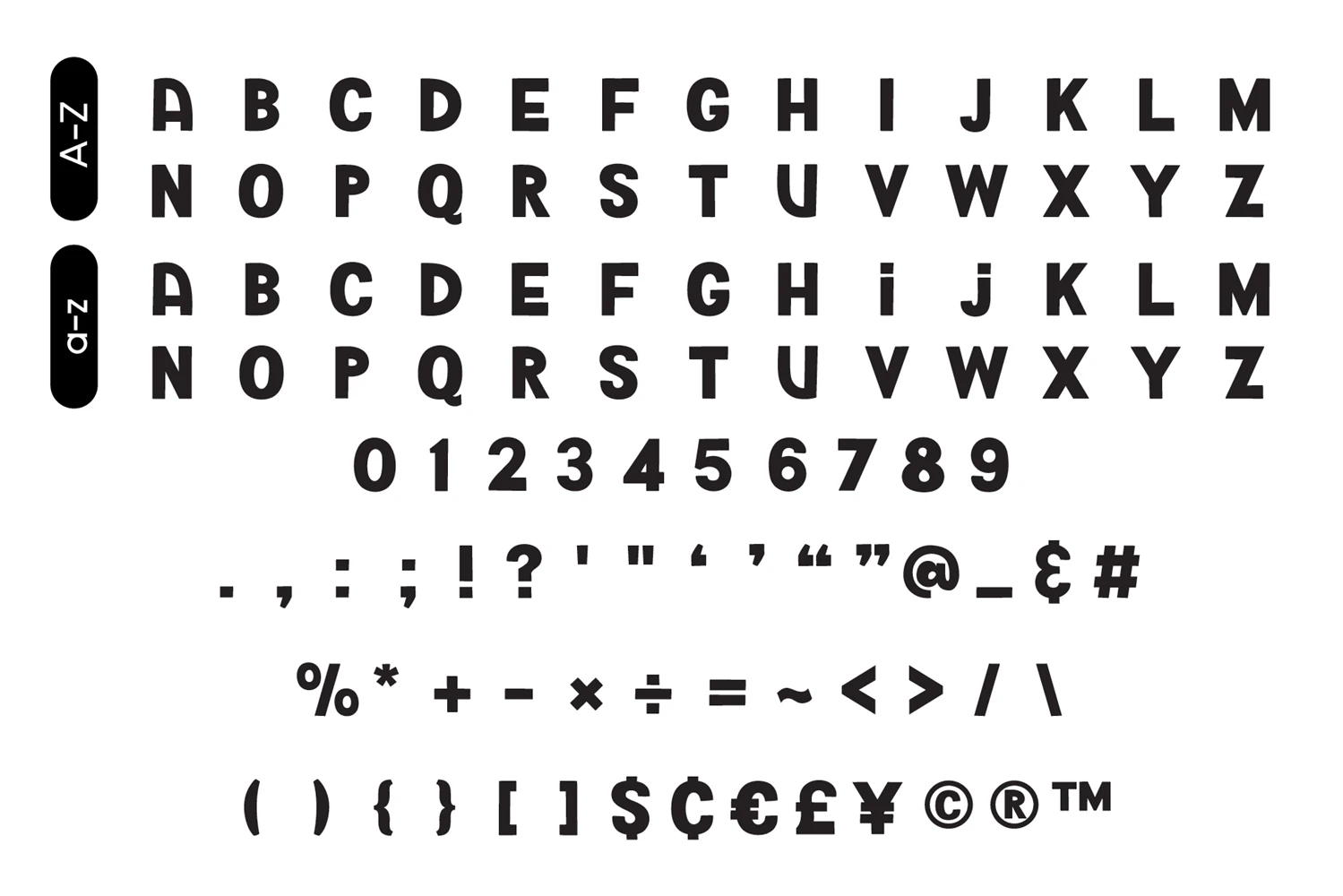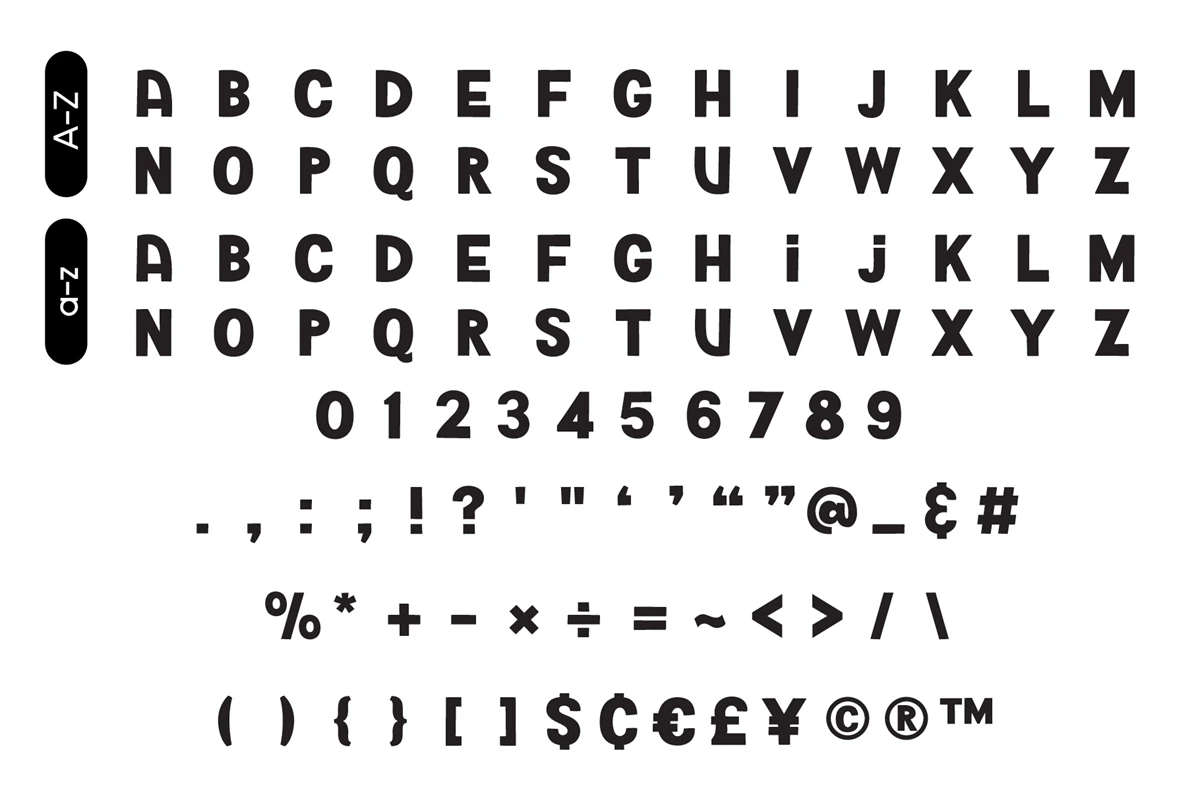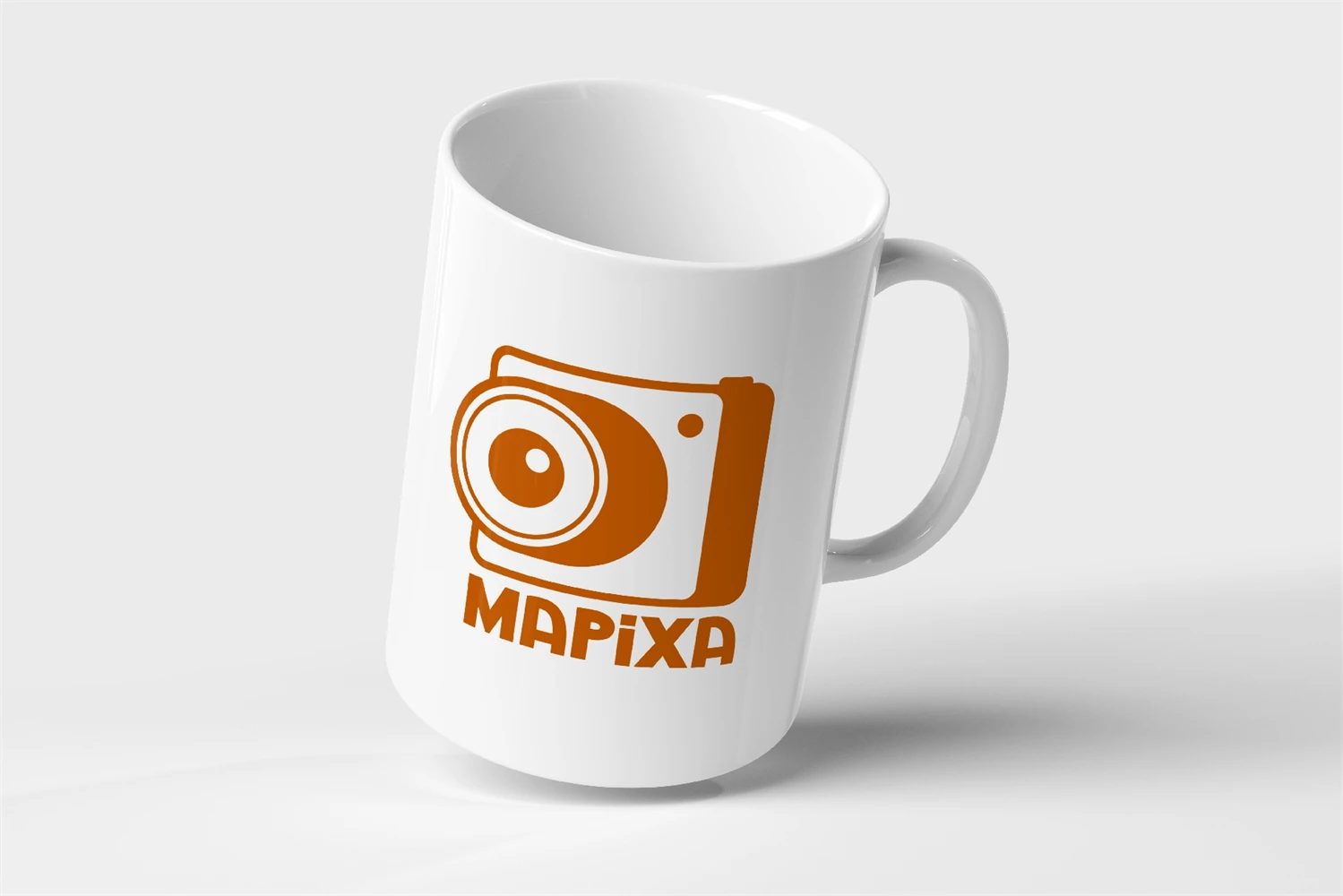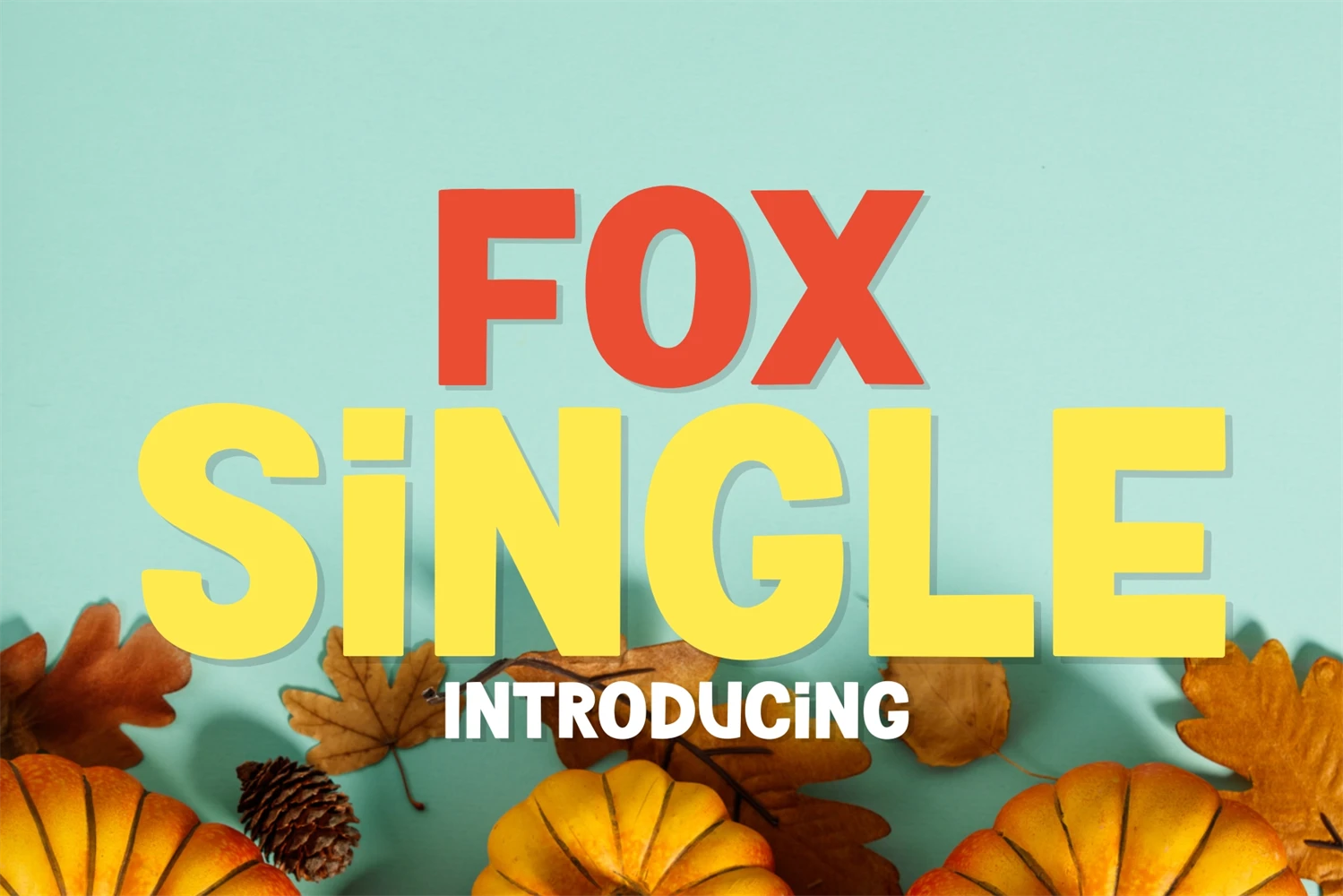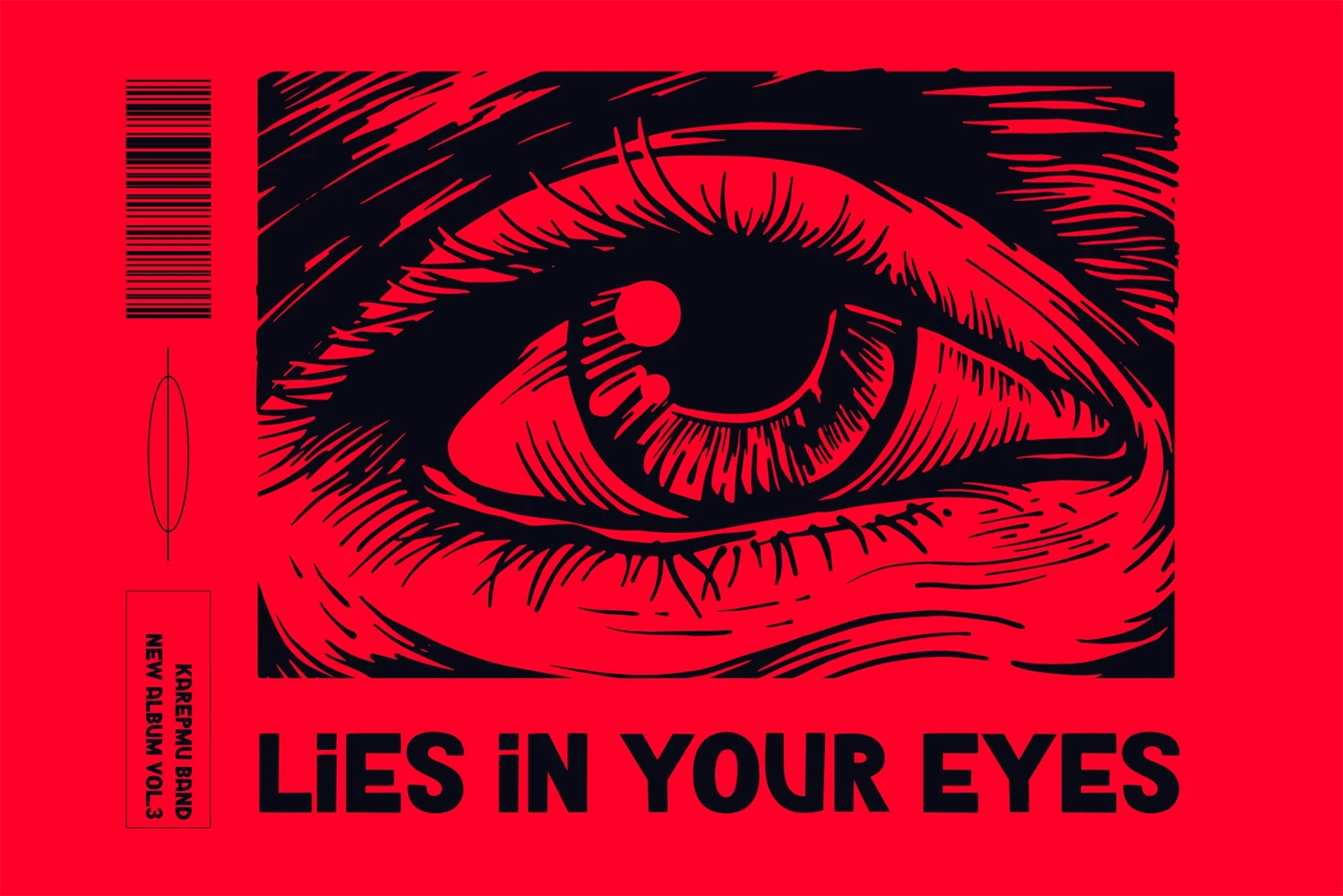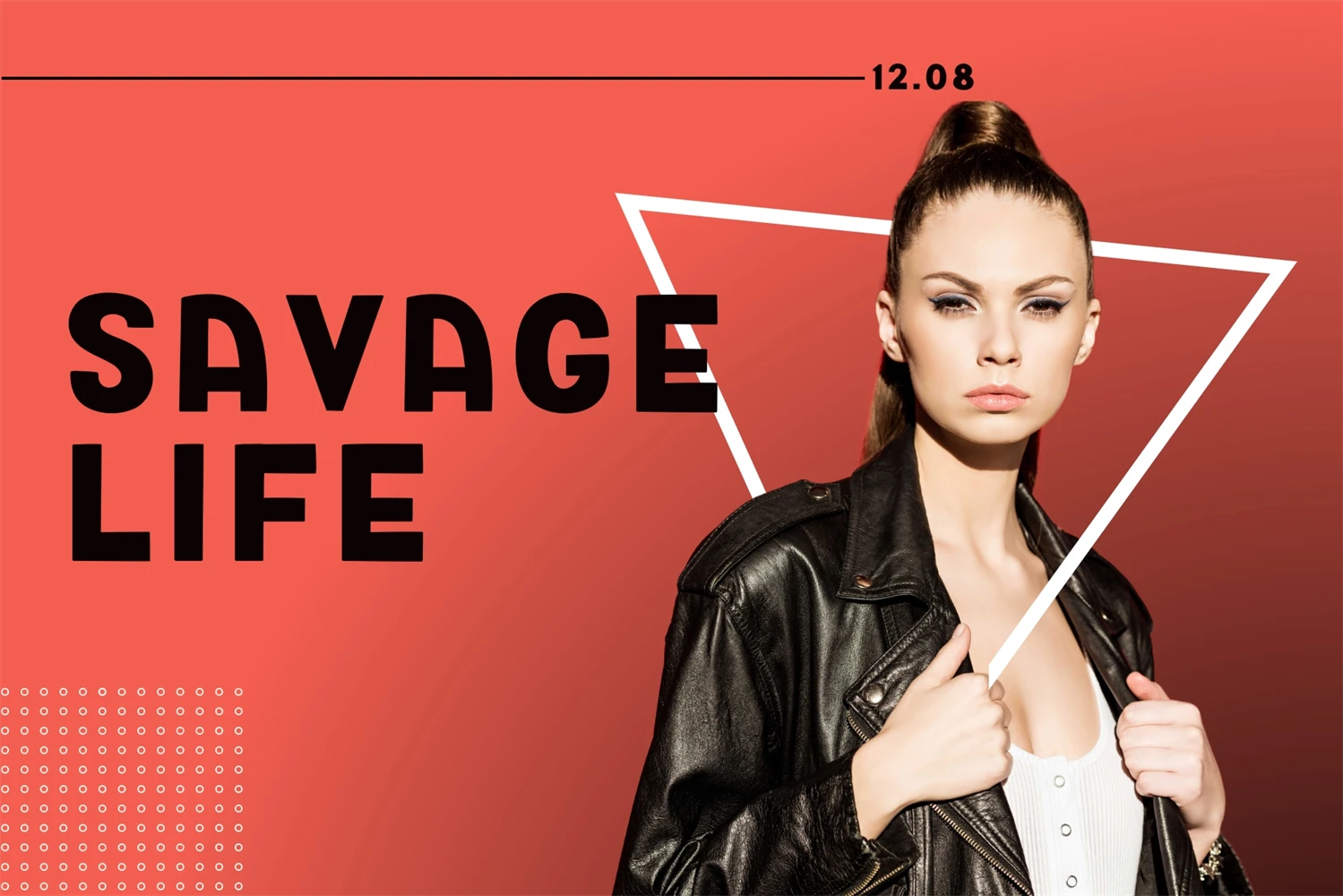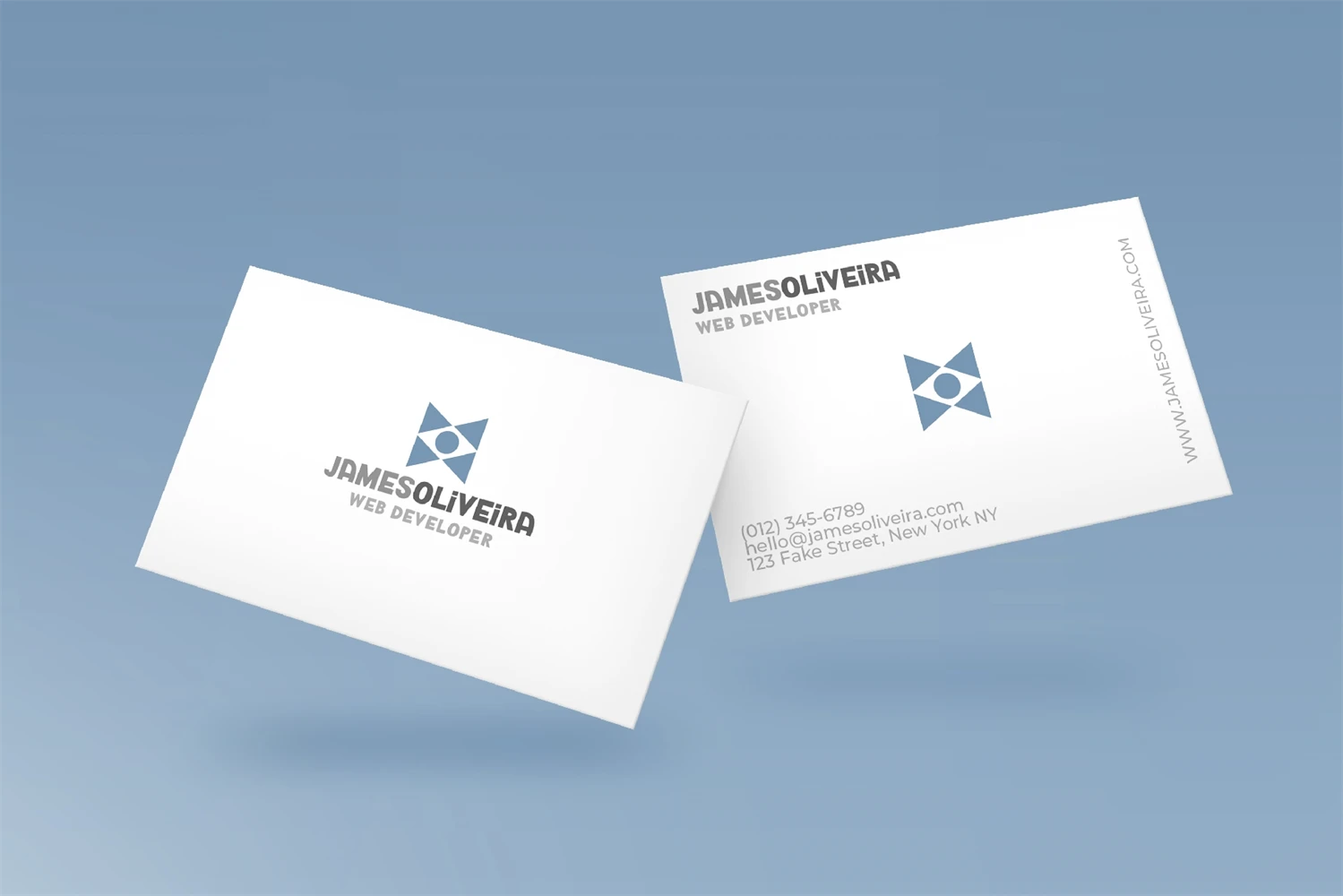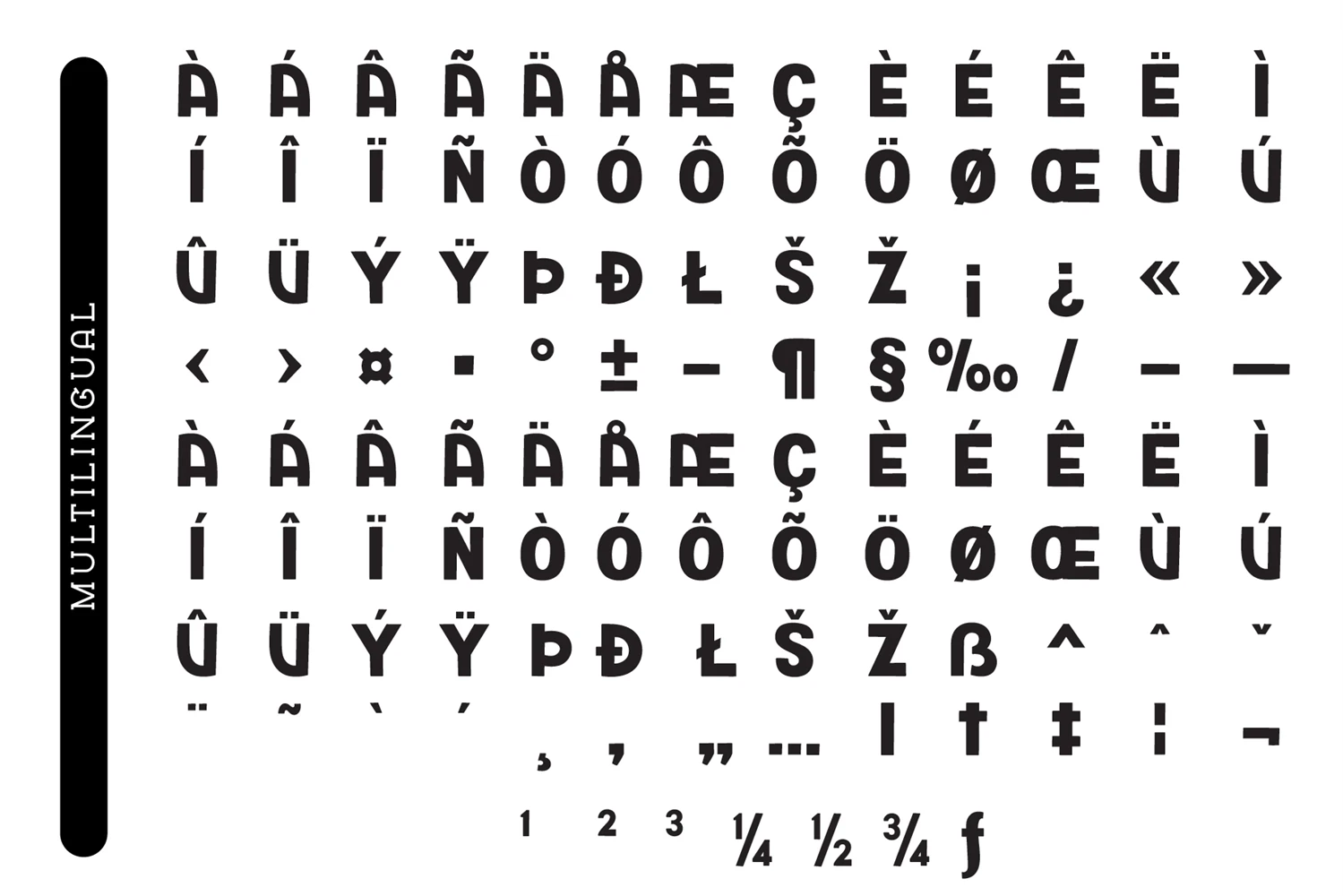
Fox Single is a strong and incredibly cool Sans Serif Fonts. For publications, logos, business cards, or printed on t-shirts, this font will look outstanding on everything, no matter the topic. This font will be an incredible asset to your fonts library, as it has the potential to elevate any creation.